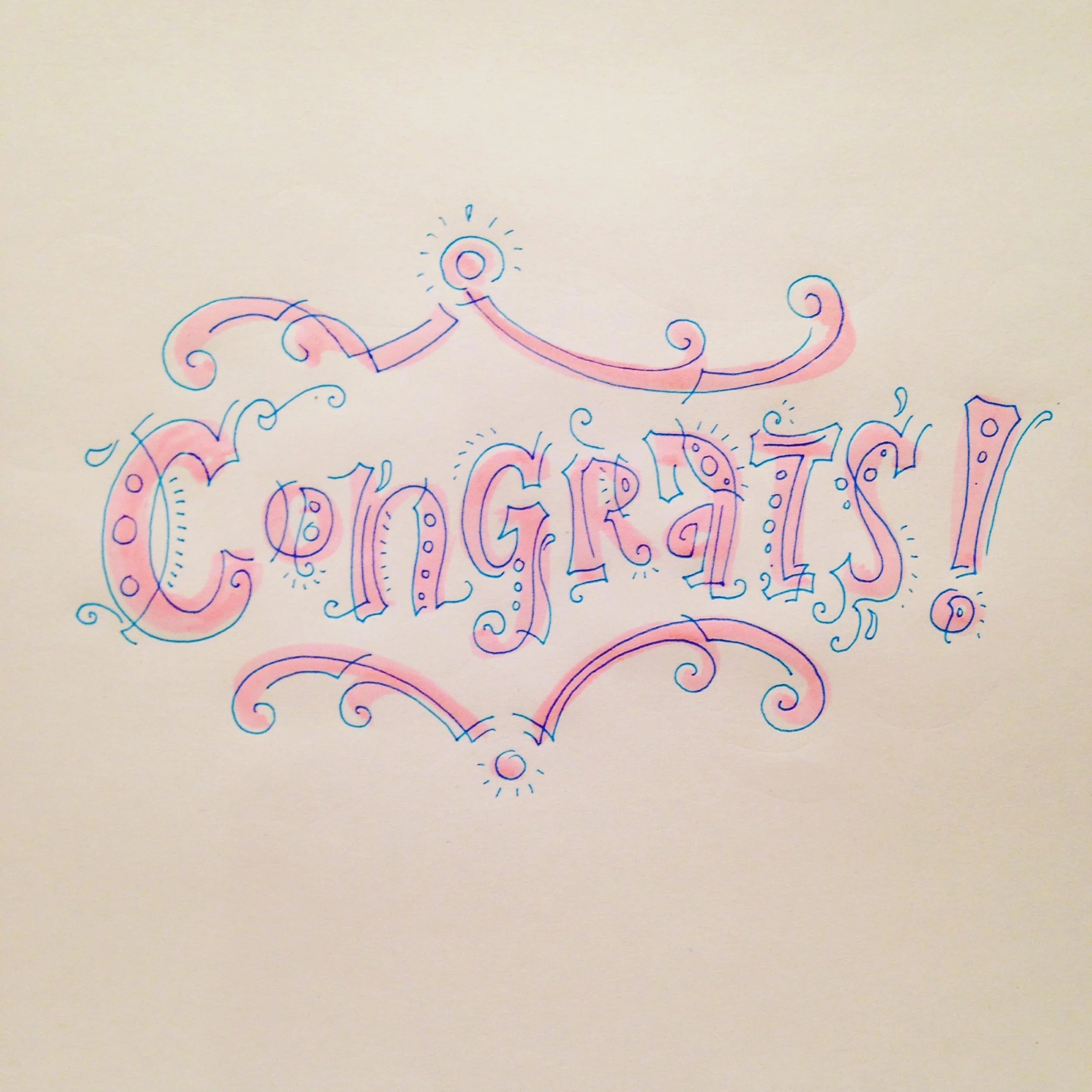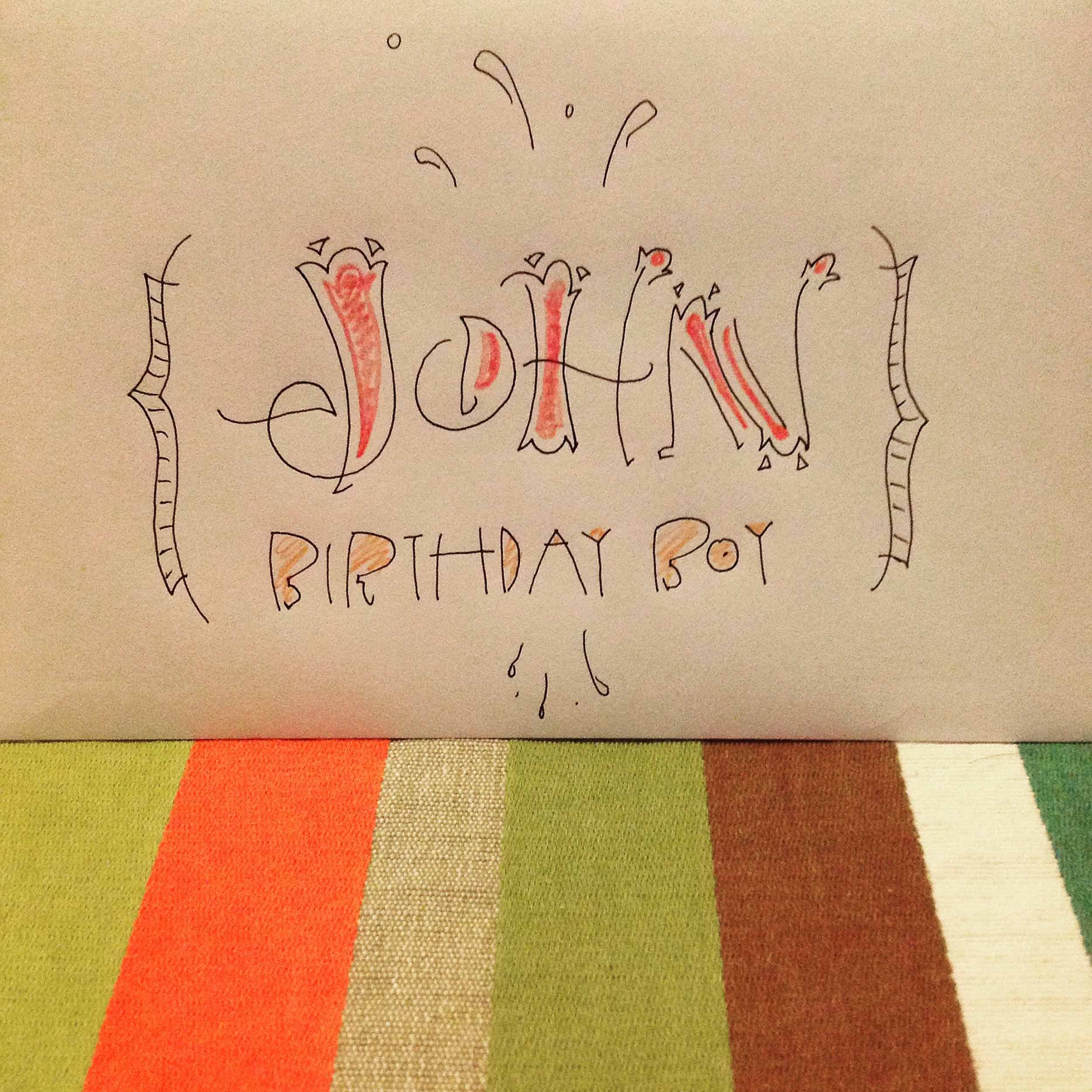
Hand Lettering Experiments
Lettering Guy worked as a lettering artist for greeting card companies. He took his professional experience in a new and personal way. He experiments with letterforms based on his experience and intuition. He uses monoline pens, highlighter markers, paint sticks, ballpoint pens, and anything that will leave a mark on paper. His experiments inform his hand lettering practice.
During a trip to Tokyo Lettering Guy shopped at a chain of home goods stores. The store had a home office section. A few months after he returned home he had a reason to use the pens, fluorescent highlighters, and newsprint notepads he bought. He would letter 100 names thanks to the online event the 100 Days Project. It challenged a participant to develop and foster a daily routine for 100 days through a creative pursuit.
So, every day for 100 days Lettering Guy designed the name of one family member, friend or acquaintance. He tested his pens on a sheets of newsprints. The pen tips were very small so ink didn’t run out of the pen. The newsprint absorbed ink without bleeding.
Each name was made with two colors of ink and embellished with dots, circles, squiggles, wavey lines, drips, and geometric shapes.
The daily practice became a meditative experience and a routine. It became a point of contact with people he hadn’t personally interacted with for years. He asked each person whose name he drew if they wanted the finished piece. Most did. A few people sent pictures of their names framed or prominently displayed. When the event concluded he exceeded his goal by lettering 150 names.
Today he incorporates elements of this type of lettering in his illustration practice. He uses this style of lettering to address envelopes and create graphics to commemorate birthdays, anniversaries and holidays.
Below, see examples of lettering experiments.
Colorful hand-drawn "Happy New Year" lettering on a sketchpad, decorated with swirls and flourishes in pink and orange.
"Happy Anniversary" hand-drawn in decorative letters with orange accents on a white background.
Stylized handwritten text on grid paper reading 'Happy Birthday' with decorative red and black designs.
Sketchbook showing hand-drawn "Good Luck" in decorative orange letters with black outlines and swirls.
Colorful hand-drawn "Congrats!" with pink and blue decorative swirls and accents on a white background.
Doodle artwork spelling 'Congratulations!' in orange and black with decorative elements on a notebook.
Hand-lettered text "HB! Birthday Boy" with decorative elements, in a mix of bold and cursive styles, using black and orange ink.
Hand-drawn decorative illustration with the word "Hugs" in pink, surrounded by ornate swirls and accents, all framed by a heart shape.
Intricate hand-drawn calligraphy with decorative elements, featuring the quote 'Let us love winter for it is the spring of genius.'
Hand-drawn card with the words "Happy Mother's Day" in decorative, artistic lettering with red and black ink on a white background.
Hand-drawn "Thank You" in decorative script with swirls and pink highlights on a beige background.
Hand-drawn illustration with the text "Thank You" in stylized pink letters. Below it, "So happy to see you" is written in cursive with decorative elements.
Decorative handwritten text "Thank U" in pink and purple with ornate borders and embellishments on a light background.
Colorful hand-drawn artwork featuring the phrase "L'amour L'amour" with decorative hearts and swirls.
Hand-drawn lettering of the word "lullaby" with colorful decorative elements such as stars, clouds, and rainbows, surrounded by pens and markers.
Handwritten note on white paper with calligraphy-style text saying, "Deborah Thanks for the sweet treats! ~Alex" using black and pink ink.
Colorful "Happy Birthday Aubrey" hand-drawn text with pink flowers on a white background.
Hand-drawn card with "John Birthday Boy" text on a colorful striped background.
Hand-drawn card with the words 'Happy Birthday Pearc' in colorful, decorative lettering with stars and swirls.
Decorative illustration featuring the words "Welcome Leo" with the date "March 12, 2016" in colorful, artistic lettering, accented with green and blue designs.
Colorful hand-drawn lettering saying "Happy Birthday Fedra" with decorative flourishes and dots.
Hand-drawn text "Amanda" in decorative style with doodles on yellow paper.
"Jen" written in decorative, doodle-style lettering with pink and black ink.
Decorative calligraphy of the name "Jill" in black and pink ink.
Creative doodle art with intricate designs in pink and black ink forming abstract letters on paper.
Intricate design spelling "Kirk" in decorative, stylized lettering with red and black lines on a white background.
Artistic letter drawing of "April" with geometric shapes and lines, outlined in red and black on plain background.
Intricate doodle art with the word "Panic" in decorative handwritten letters
Abstract, artistic drawing of the word 'scent' in decorative, stylized lettering with pink and black patterns.
Hand-drawn cursive typography spelling "Martha" on paper.
Intricate stylized lettering design with red and black ink on a beige background.
Intricate calligraphy with abstract and decorative elements in black and red ink.
Ornate calligraphy design on paper